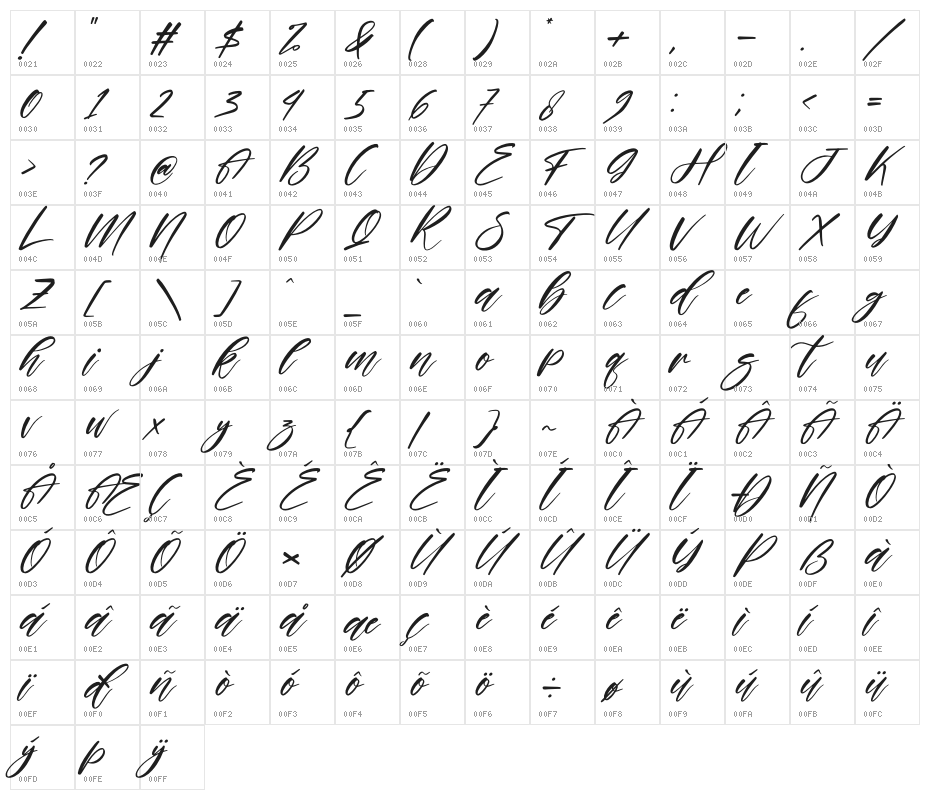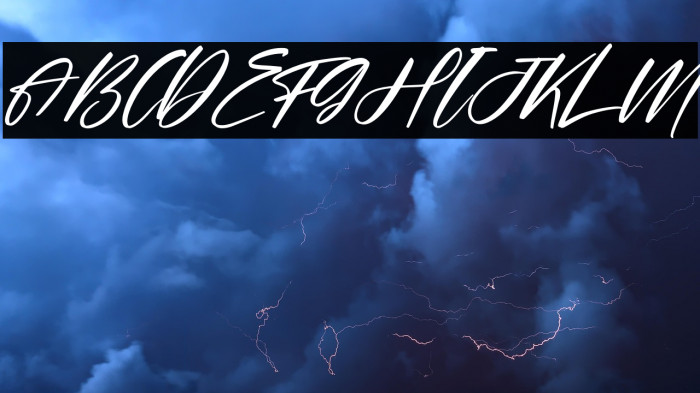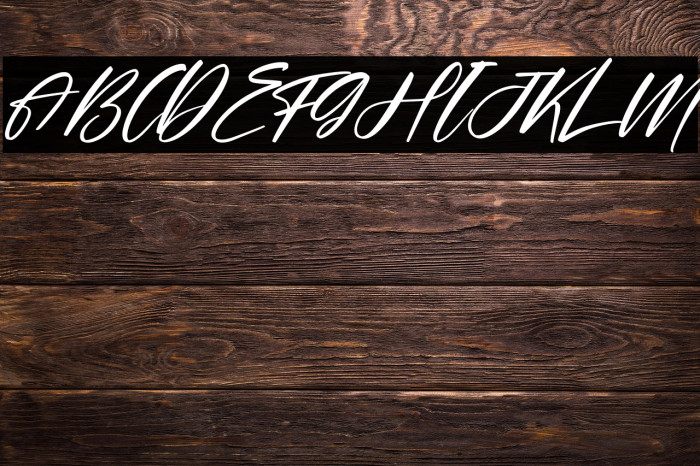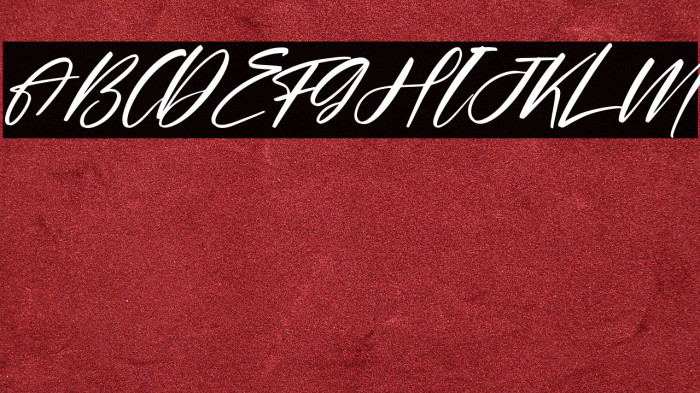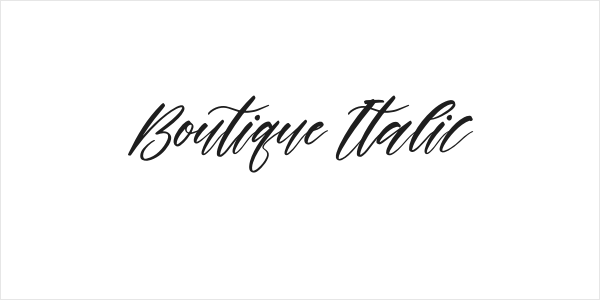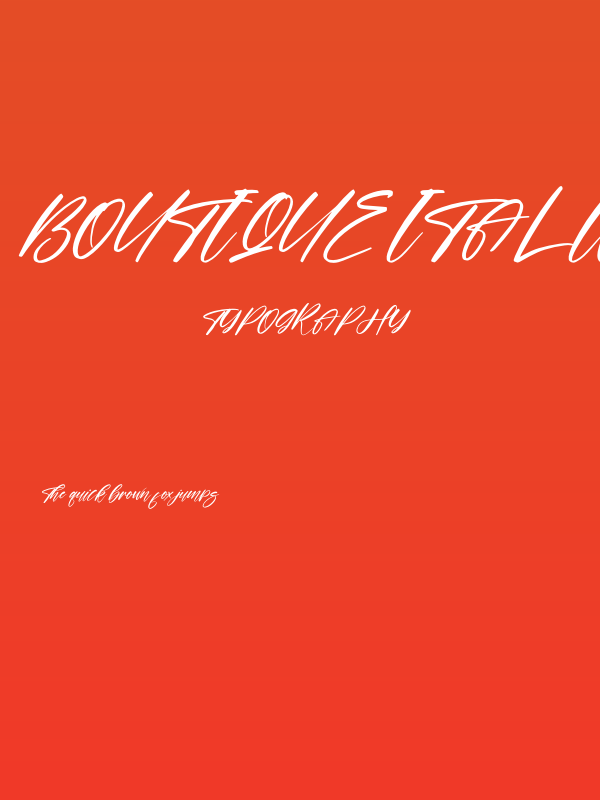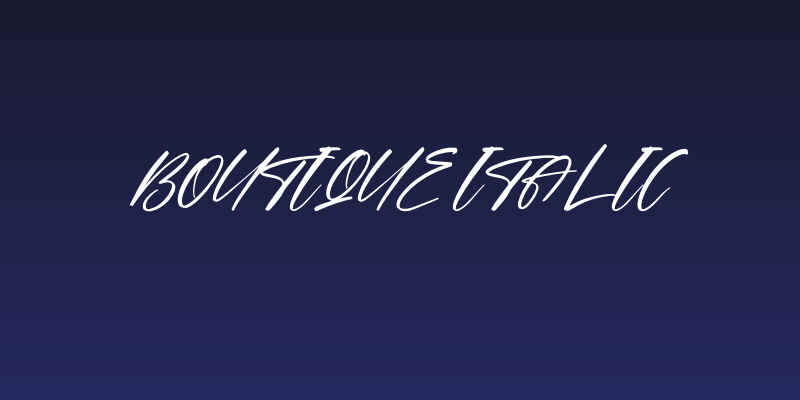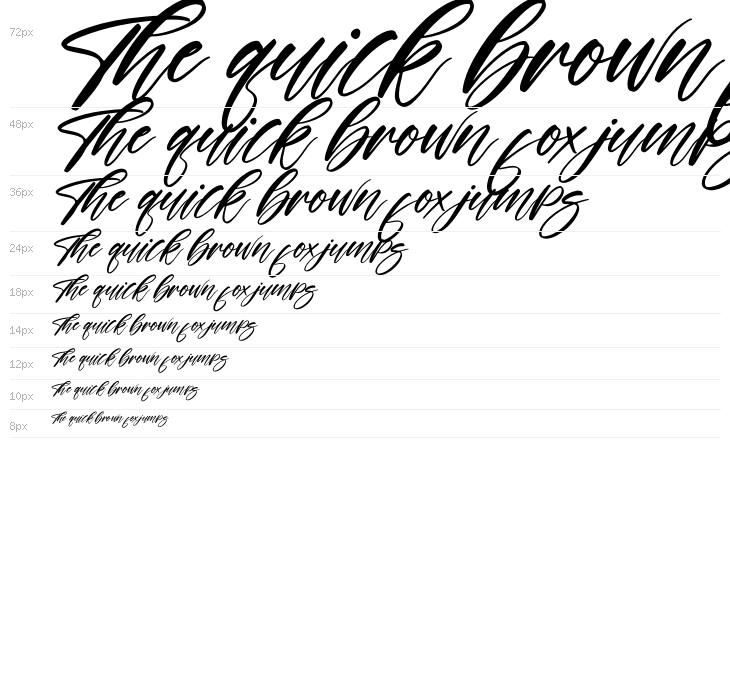
Boutique Italic Font
Boutique Italic Description
This font features a dynamic and fluid script style, characterized by its elegant and flowing letterforms. The strokes are smooth and connected, giving it a handwritten appearance that is both stylish and sophisticated. The uppercase letters are bold and prominent, while the lowercase letters maintain a consistent flow with slightly exaggerated curves. The numerals and special characters are designed to match the overall aesthetic, ensuring a cohesive look. This font is ideal for projects that require a personal touch, such as invitations, branding, and decorative designs.
| Proposed Projects | Ideal for wedding invitations, personal branding, greeting cards, and decorative signage. |